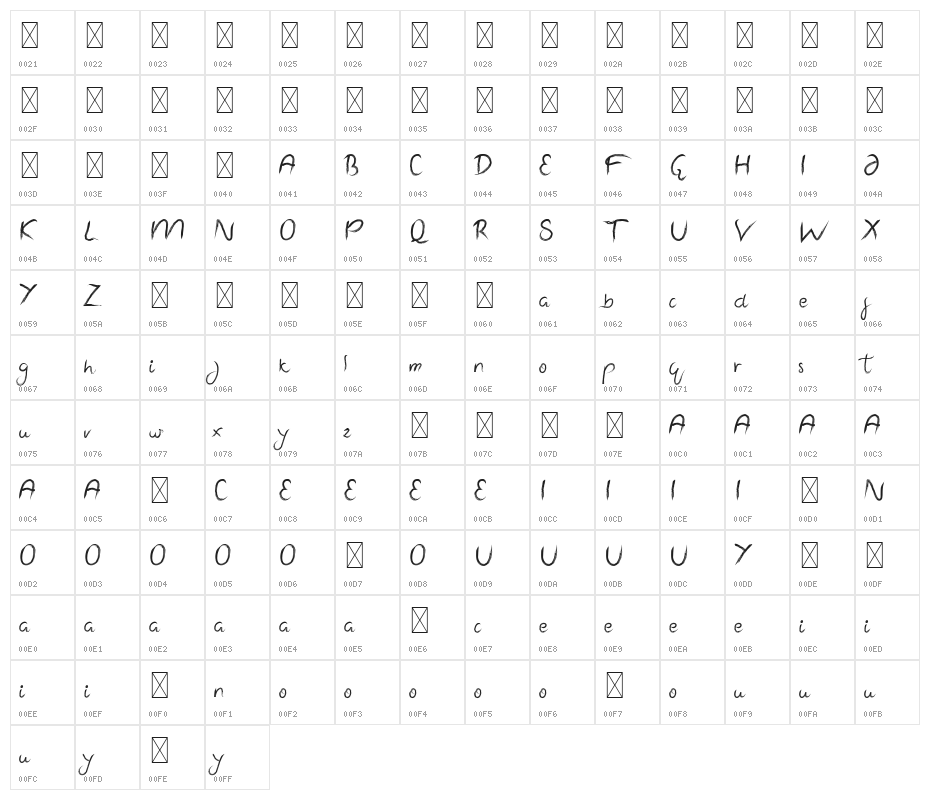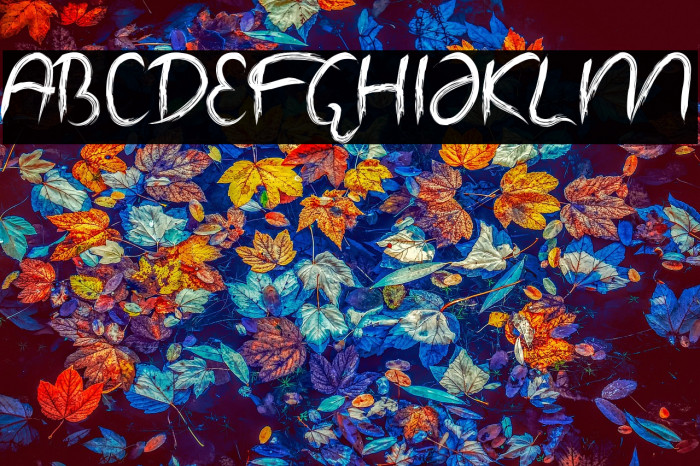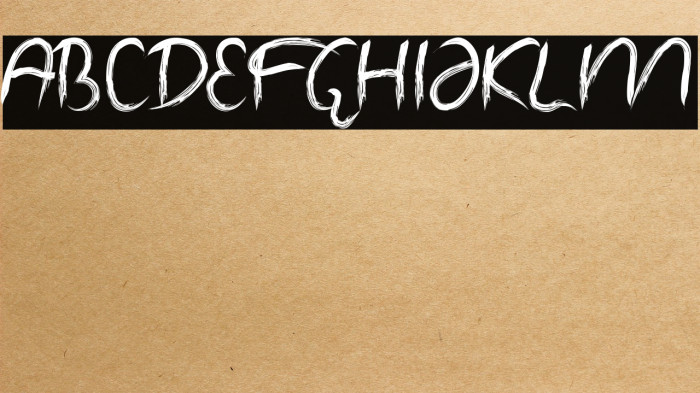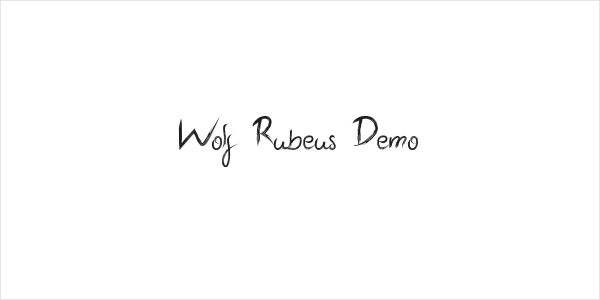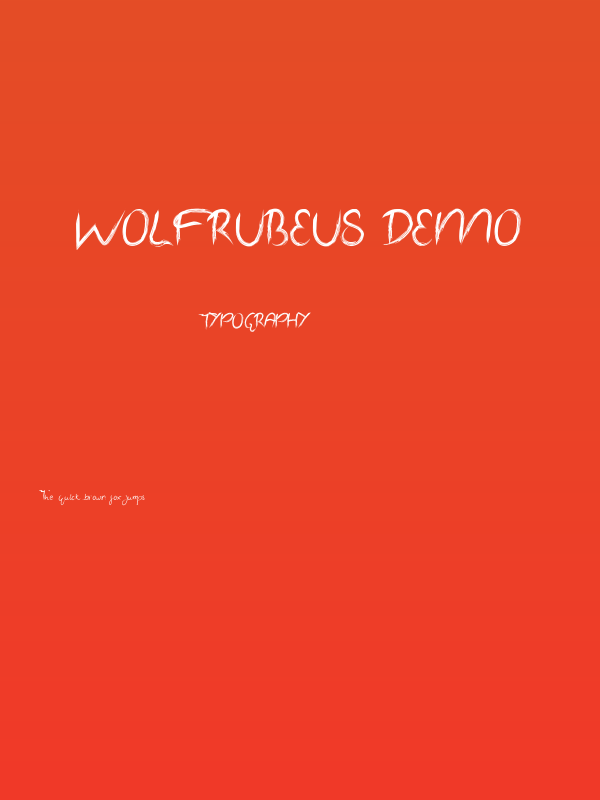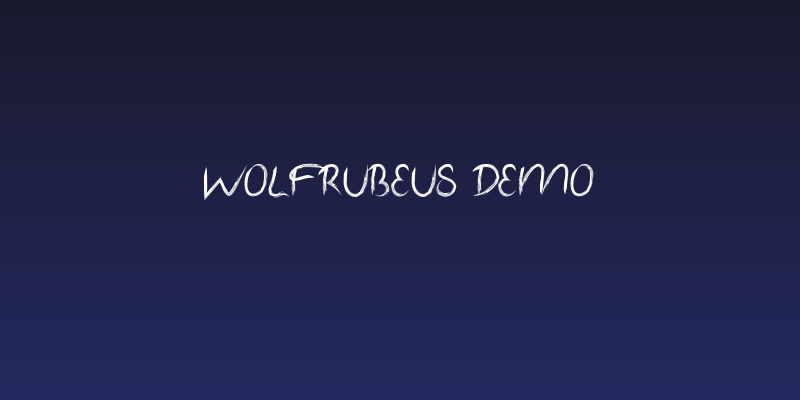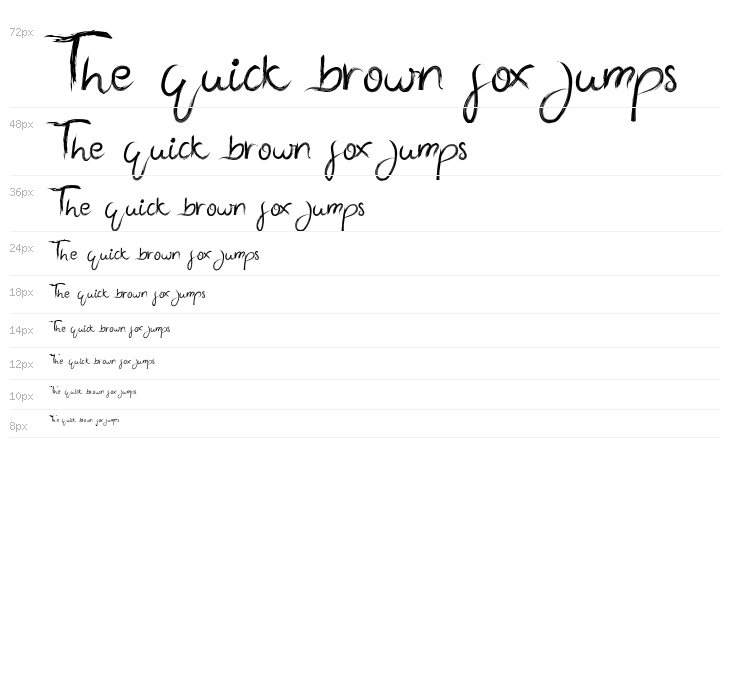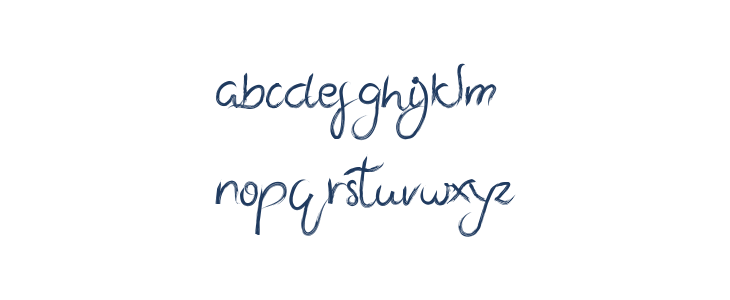
Wolf Rubeus Demo Font
Wolf Rubeus Demo Description
This font features a dynamic and expressive style, characterized by its brush-like strokes and organic flow. The uppercase letters exhibit a bold and energetic appearance, with sharp angles and varying line thicknesses that create a sense of movement. The lowercase letters maintain this fluidity, offering a more casual and approachable feel. The font's unique texture and irregularities give it a hand-drawn, artistic quality, making it stand out in any design. The absence of traditional serifs and the emphasis on brush-like strokes contribute to its modern and creative aesthetic.
| Overall Style | Modern, Artistic |
| Use Case | Headlines, Logos, Artistic designs |
| Proposed Projects | Ideal for creative projects such as posters, album covers, branding, and artistic invitations. |